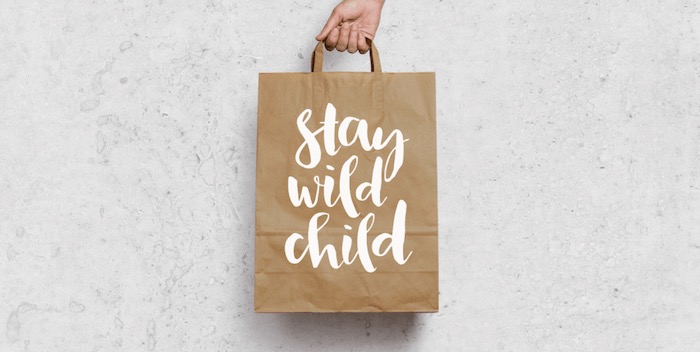
Olive Sky Font is categorized into script fonts that have a gorgeous luxury calligraphy style. It was created and shared by Angèle Kamp. You can use this handwritten script font for many types of projects.
Olive Sky Calligraphy Script Font